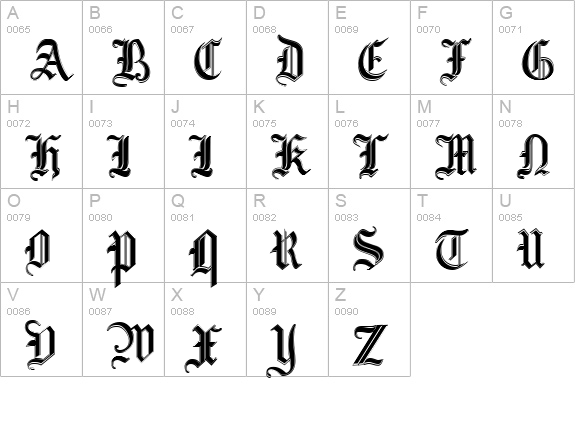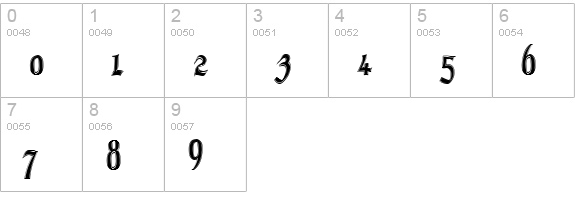
Introducing MottisfontNo3 font, a stunning and elegant typeface that exudes sophistication and charm. With its graceful curves and timeless appeal, this font is perfect for adding a touch of class to any project. Whether you're designing a wedding invitation, a logo, or a branding project, MottisfontNo3 font will effortlessly elevate your design to the next level. What's even better? MottisfontNo3 font is available for free download at FontsMarket.com. Yes, you read that right – you can access this beautiful font at no cost, making it the perfect choice for designers on a budget or anyone looking to add a touch of luxury to their work without breaking the bank. Don't miss out on this opportunity to enhance your designs with MottisfontNo3 font. Download it for free today and see the magic it brings to your projects!